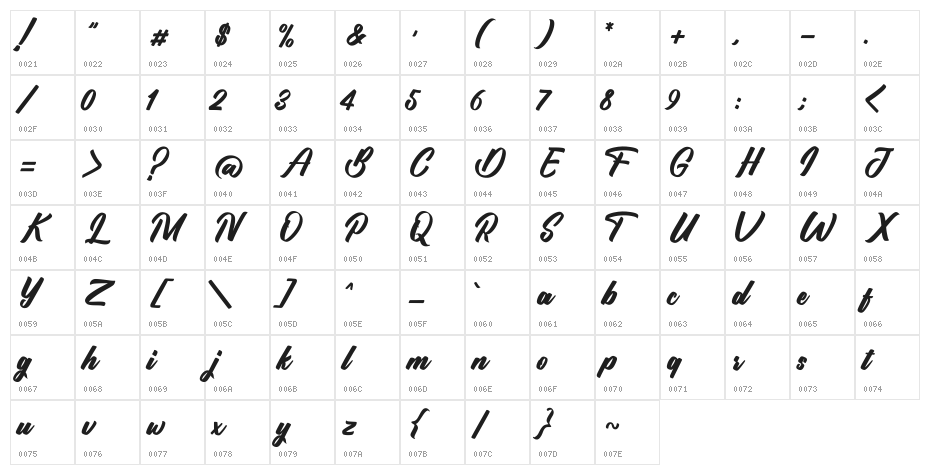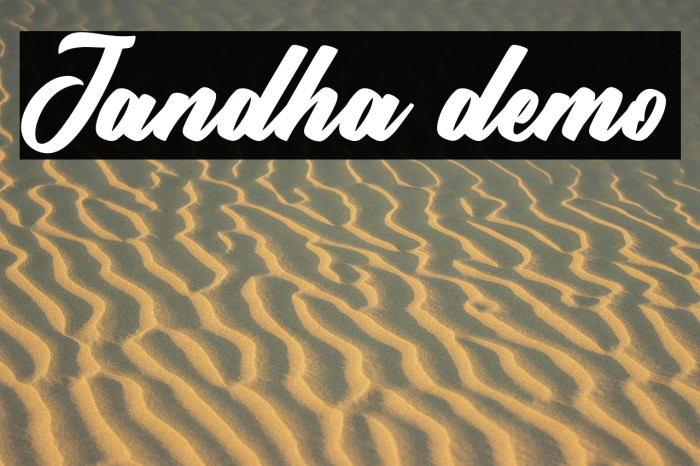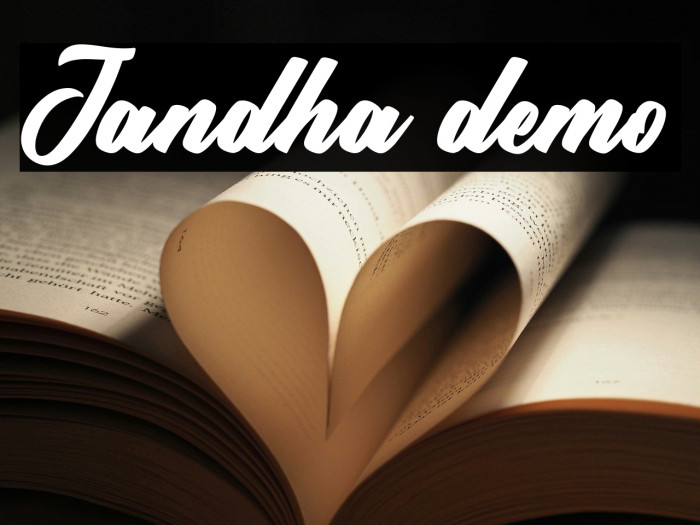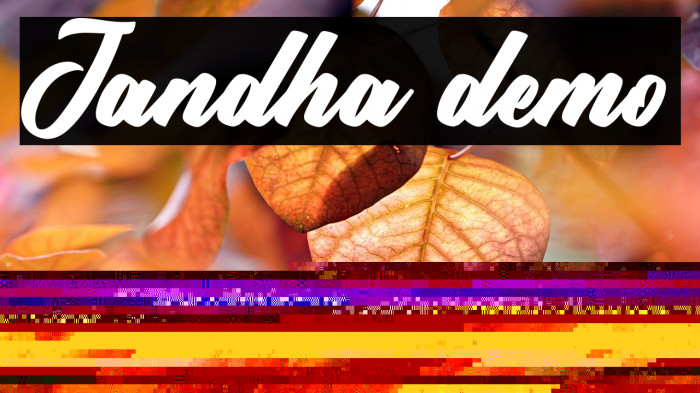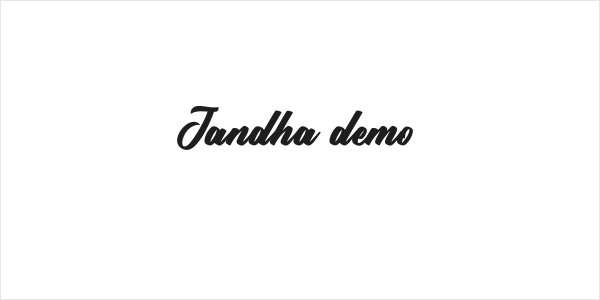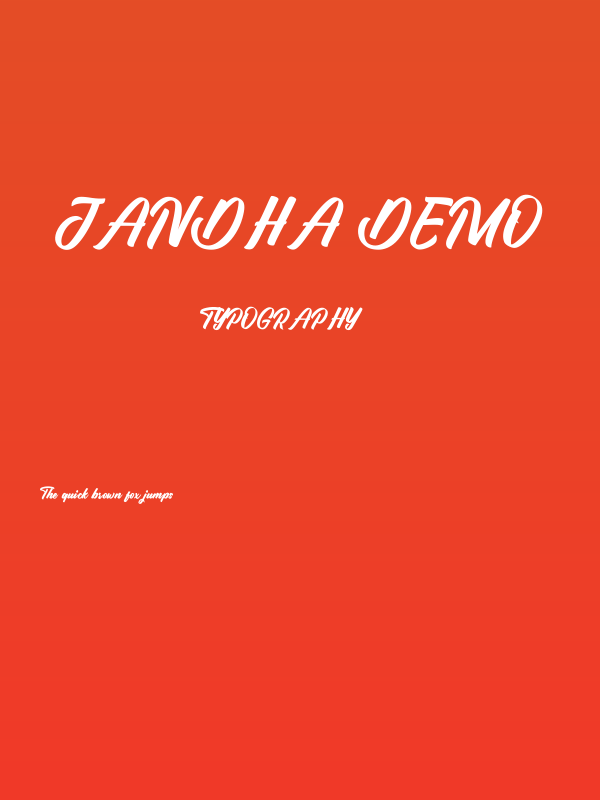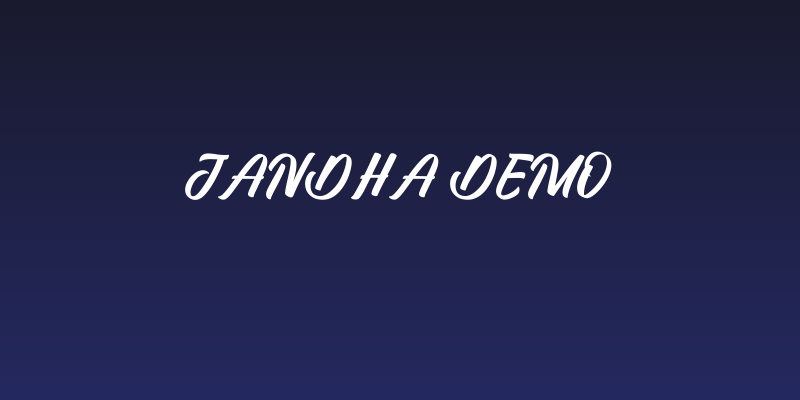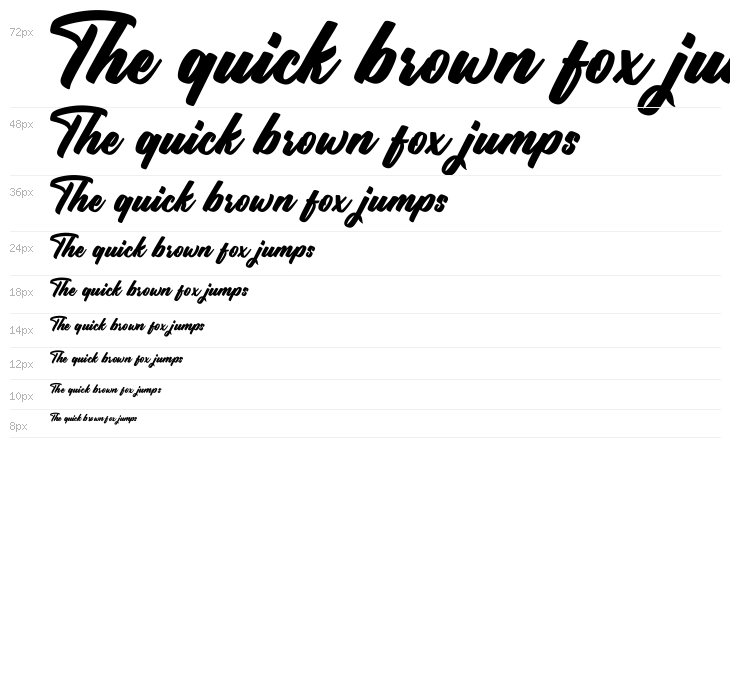
Jandha demo Font
Jandha demo Description
This font features a bold and dynamic script style, characterized by its fluid, cursive letterforms that convey a sense of elegance and movement. The uppercase letters are slightly slanted, with smooth curves and a consistent stroke width that adds to its legibility. The lowercase letters maintain a cohesive flow, with distinctive loops and connections that enhance the font's handwritten appearance. Numbers and special characters are designed to match the overall style, ensuring a harmonious look across all text. The font's bold weight and medium contrast make it suitable for various design applications where a touch of sophistication is desired.
| Overall Style | Elegant, Handwritten |
| Proposed Projects | Ideal for branding, invitations, greeting cards, and logo design where an elegant and personal touch is needed. |